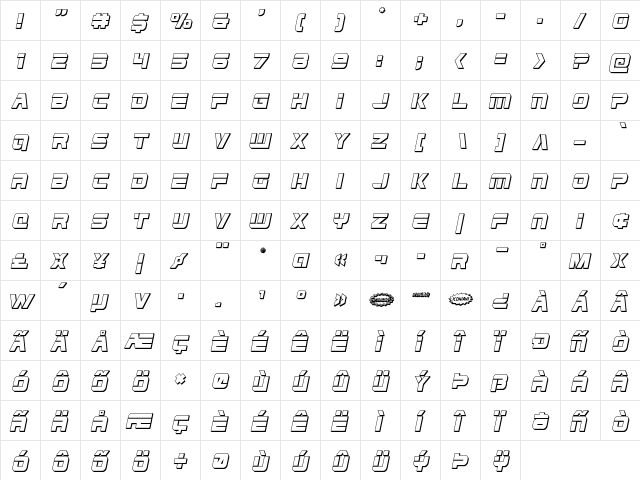
Edge Racer 3D Italic Italic Font Preview
Edge Racer 3D Italic Italic
Design Context for Edge Racer 3D Italic Typeface
Edge Racer 3D Italic is a composed and adaptable typeface that performs quietly and consistently across a wide range of design contexts. The slanted form adds forward momentum and visual energy.
Pro Tip: Use Edge Racer 3D Italic for emphasis, pull quotes, and subheadings where its slanted energy can add rhythm to the layout.